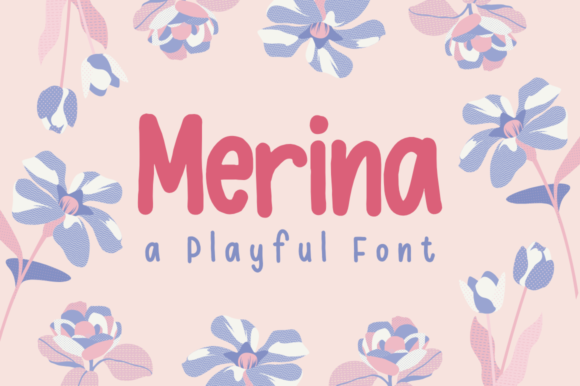
Merina Font: A Playful and Painted Display Font for Your Creative Projects
Are you looking for a font that can add a touch of playfulness and whimsy to your designs? Look no further than Merina Font, a beautiful and unique display font that is perfect for a variety of creative projects. In this article, we’ll take a closer look at Merina Font, its features, and how you can use it to elevate your designs.
What is Merina Font?
Merina Font is a playful and paint-brushed display font that is designed to add a touch of fun and personality to your designs. It is a carefully crafted font that features bold, expressive brushstrokes that give it a unique and eye-catching appearance. Whether you’re working on a cartoon-related design, a children’s game, or any other project that requires a playful touch, Merina Font is an excellent choice.
Key Features of Merina Font
So, what makes Merina Font so special? Here are some of its key features:
- Playful and whimsical design: Merina Font features bold, expressive brushstrokes that give it a playful and whimsical appearance.
- Perfect for cartoon-related designs: The font’s playful design makes it perfect for cartoon-related designs, children’s games, and other projects that require a fun and youthful touch.
- Easy to read: Despite its playful design, Merina Font is easy to read, making it perfect for use in a variety of contexts.
- High-quality design: Merina Font is a high-quality font that is designed to look great in a variety of sizes and resolutions.
How to Use Merina Font in Your Designs
Merina Font is a versatile font that can be used in a variety of creative projects. Here are some ideas for how you can use it:
- Cartoon-related designs: Merina Font is perfect for cartoon-related designs, such as animated movies, TV shows, and comics.
- Children’s games: The font’s playful design makes it perfect for use in children’s games, such as puzzle games, adventure games, and educational games.
- Branding and advertising: Merina Font can also be used in branding and advertising, particularly for companies that want to add a playful touch to their brand identity.
- Web design: The font can also be used in web design, particularly for websites that require a playful and youthful touch.
Tips for Getting the Most Out of Merina Font
Here are some tips for getting the most out of Merina Font:
- Use it in large sizes: Merina Font is designed to be used in large sizes, so don’t be afraid to experiment with different sizes and weights.
- Experiment with different colors: The font’s playful design makes it perfect for use with bright, bold colors.
- Pair it with other fonts: Merina Font can be paired with other fonts to create a unique and eye-catching design.
Merina Font: A Great Choice for Designers
Merina Font is a great choice for designers who want to add a touch of playfulness and whimsy to their designs. The font’s unique design and versatility make it perfect for a variety of creative projects, from cartoon-related designs to branding and advertising.
In conclusion, Merina Font is a beautiful and unique display font that is perfect for designers who want to add a touch of playfulness and whimsy to their designs. With its bold, expressive brushstrokes and easy-to-read design, Merina Font is an excellent choice for a variety of creative projects. Whether you’re working on a cartoon-related design, a children’s game, or any other project that requires a playful touch, Merina Font is a great choice.
Merina Font Specifications
| Font Name | Merina Font |
|---|---|
| Font Style | Playful, Paint-brushed Display Font |
| Font Weight | Bold |
| Font Size | Large sizes recommended |
Frequently Asked Questions (FAQs)
- What is Merina Font?: Merina Font is a playful and paint-brushed display font.
- What is Merina Font used for?: Merina Font is perfect for cartoon-related designs, children’s games, branding and advertising, and web design.
- Is Merina Font easy to read?: Yes, Merina Font is easy to read, despite its playful design.